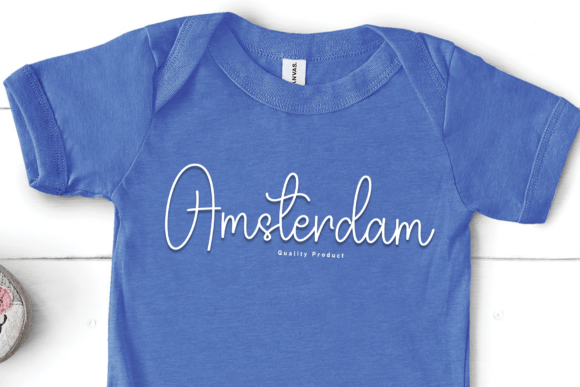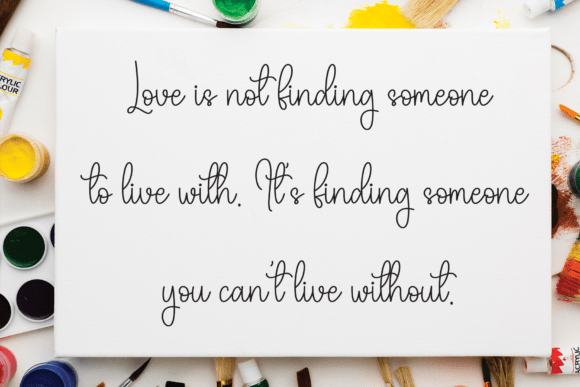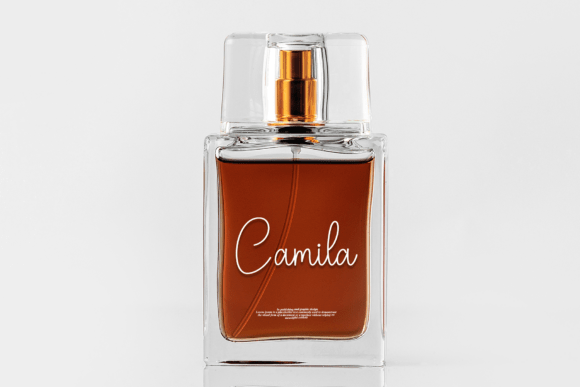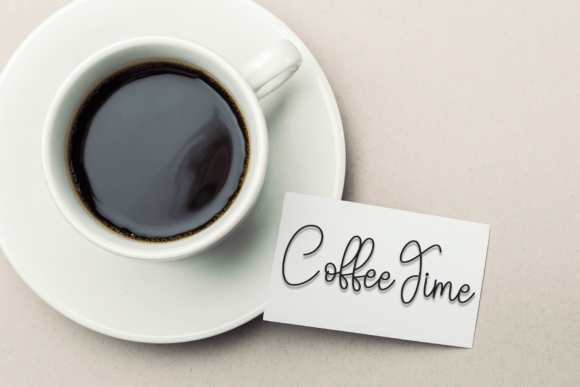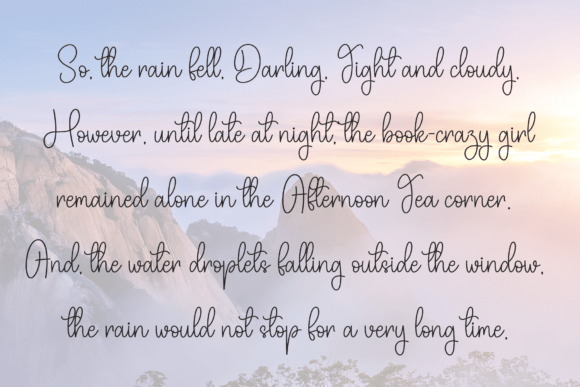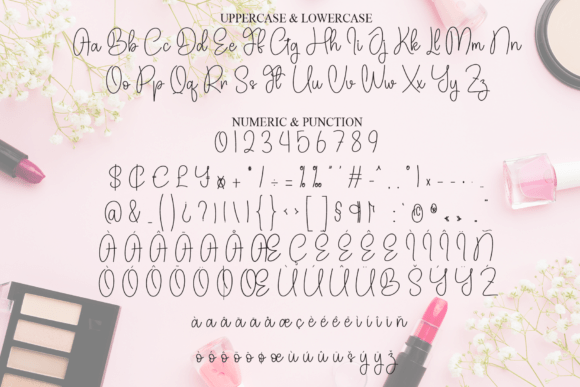
Unleashing the Art of Design: The Timeless Charm of Beauty Font
There’s something magical about the moment when a design comes together – the perfect balance of colors, textures, and typography. For designers, it’s a feeling of pride and accomplishment that can’t be replicated. And at the heart of this magic is often a carefully chosen font, one that elevates the entire design and adds a touch of sophistication.
Enter Beauty Font, a stunning handwritten script font that embodies elegance and fluidity. With its smooth, flowing strokes, this typeface is perfect for branding, invitations, and creative projects where a personal, artistic touch is needed. Whether you’re a seasoned designer or just starting out, Beauty Font offers a valuable addition to your toolkit, allowing you to create designs that truly stand out.
So why is Beauty Font so valuable for designers? Simply put, it adds a level of refinement and charm to any design, making it perfect for a wide range of applications.
Beauty Font Key Features
- Unique Characteristics: Beauty Font features a unique blend of elegant and modern design elements, making it perfect for use in creative and sophisticated contexts, such as fashion, beauty, and luxury branding.
- Language Support: Beauty Font supports a wide range of languages, including Latin, Cyrillic, Greek, and many others, making it a versatile choice for global branding and communication.
- Kerning and Ligatures: Beauty Font includes advanced kerning and ligature features, ensuring that text looks smooth and professional, even in complex layouts and compositions.
Design Review: Beauty Font
As a designer, I’ve had the chance to explore the Beauty Font, and here’s my honest take on it. ✨
- Beauty Font’s elegant and refined aesthetic is perfect for high-end branding and luxury products.
- The font’s versatility makes it suitable for a wide range of applications, from body text to headings.
- The font’s smooth curves and subtle flourishes add a touch of sophistication and glamour.
- ⚠️ Beauty Font may not be the best choice for projects requiring a more playful or casual tone.
- ⚠️ The font’s complexity may make it challenging to pair with other fonts or design elements.
- ⚠️ Beauty Font’s ornate details may be lost in smaller text sizes or low-resolution displays.
Beauty Font is a beautiful and elegant font that shines in high-end branding and luxury applications. While it may have some limitations, it’s a great choice for designers looking to add a touch of sophistication and glamour to their projects. With careful consideration of its strengths and weaknesses, Beauty Font can be a valuable addition to any designer’s toolkit.
Beauty Font is ideal for creating elegant and sophisticated designs, such as invitations, business cards, and logos. To get the most out of Beauty Font, experiment with different font sizes, colors, and styles to create unique and eye-catching effects. Consider pairing Beauty Font with other elegant fonts or typography elements to create a cohesive and professional look.